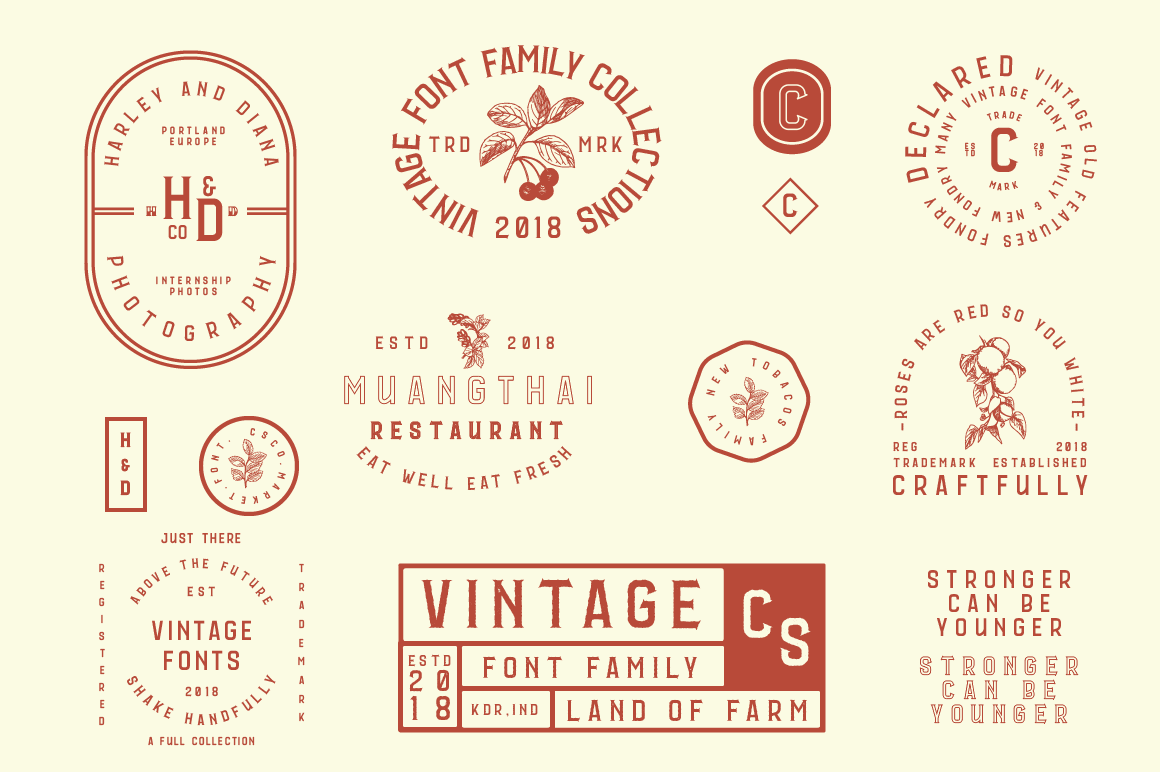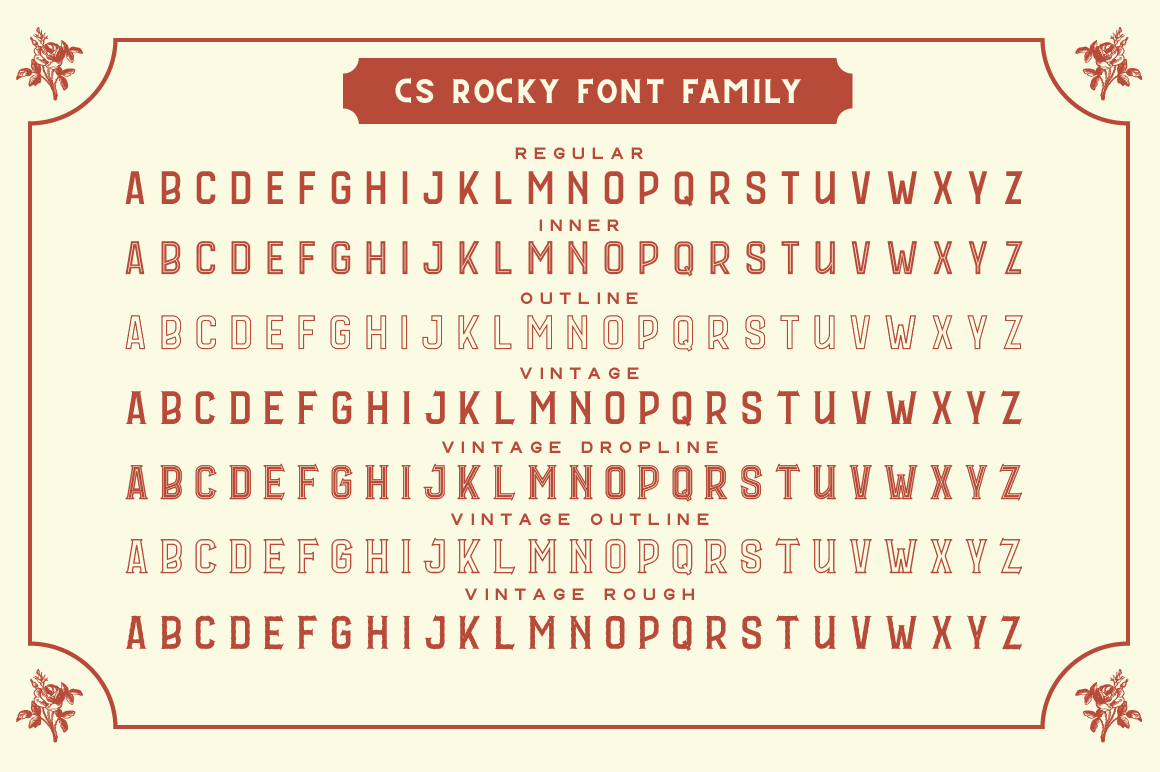
Introducing CS Rocky Font: A Bold and Versatile Sans Serif Font
Are you looking for a font that can add a touch of modernity and sophistication to your designs? Look no further than CS Rocky Font. This bold sans serif font is a stunning addition to any design project, with its solid and outlined font files making it a standout and reliable typeset. In this article, we’ll take a closer look at CS Rocky Font and explore its features, benefits, and uses.
What is CS Rocky Font?
CS Rocky Font is a bold sans serif font that is designed to make a statement. With its solid and outlined font files, this font set is perfect for creating eye-catching headlines, titles, and text that demands attention. The font is highly versatile and can be used in a variety of design projects, from vintage-inspired designs to modern and sleek designs.
Key Features of CS Rocky Font
- Bold and striking design: CS Rocky Font is a bold sans serif font that is designed to grab attention.
- Solid and outlined font files: The font set includes both solid and outlined font files, giving you flexibility and options for your designs.
- Vintage-inspired and modern designs: CS Rocky Font looks great in both vintage-inspired designs and modern designs, making it a versatile addition to your font library.
- Easy to read: Despite its bold design, CS Rocky Font is easy to read, making it perfect for use in headlines, titles, and body text.
Benefits of Using CS Rocky Font
So why should you choose CS Rocky Font for your design projects? Here are just a few benefits of using this amazing font:
- Adds visual interest: CS Rocky Font adds a touch of visual interest to your designs, making them stand out from the crowd.
- Highly versatile: The font can be used in a variety of design projects, from vintage-inspired designs to modern and sleek designs.
- Time-saving: With its bold design and easy-to-read style, CS Rocky Font can save you time and effort in your design projects.
Uses of CS Rocky Font
CS Rocky Font is a versatile font that can be used in a variety of design projects, including:
- Headlines and titles: Use CS Rocky Font to create eye-catching headlines and titles that demand attention.
- Posters and flyers: The font is perfect for use in posters and flyers, where you want to grab attention and make a statement.
- Logos and branding: CS Rocky Font can be used to create bold and striking logos and branding materials.
- Web design: The font can be used in web design projects, including website headers, titles, and body text.
Tips for Using CS Rocky Font
Here are a few tips for using CS Rocky Font in your design projects:
- Use it sparingly: While CS Rocky Font is a bold and striking font, it can be overwhelming if used too much. Use it sparingly to create visual interest and emphasis.
- Pair it with other fonts: CS Rocky Font looks great when paired with other fonts. Experiment with different font combinations to create a unique and visually appealing design.
- Experiment with colors: The font looks great in a variety of colors. Experiment with different colors to find the one that works best for your design.
In conclusion, CS Rocky Font is a bold and versatile sans serif font that is perfect for adding a touch of modernity and sophistication to your designs. With its solid and outlined font files, this font set is highly versatile and can be used in a variety of design projects. Whether you’re a designer, craft, or DIY enthusiast, CS Rocky Font is a great addition to your font library.